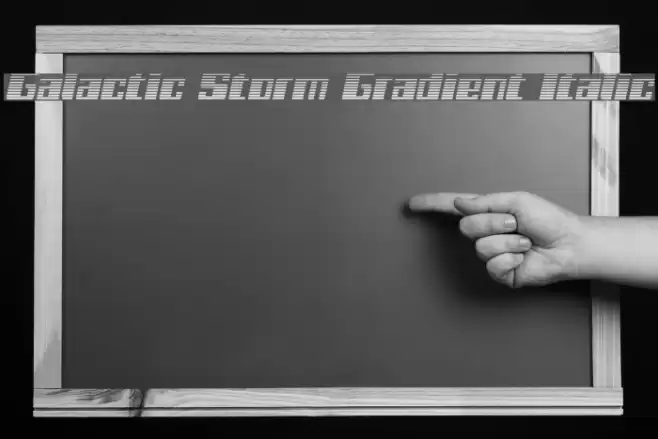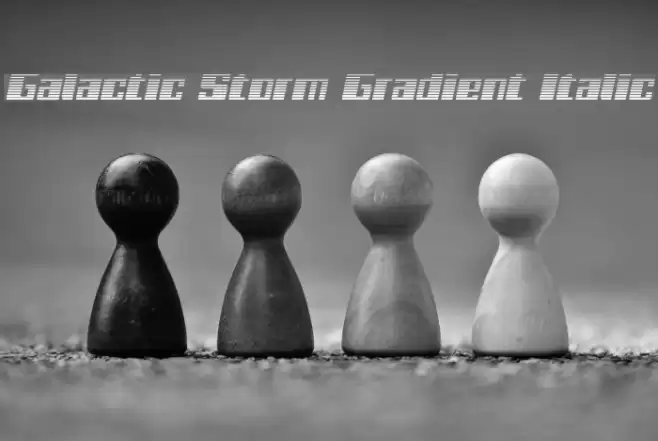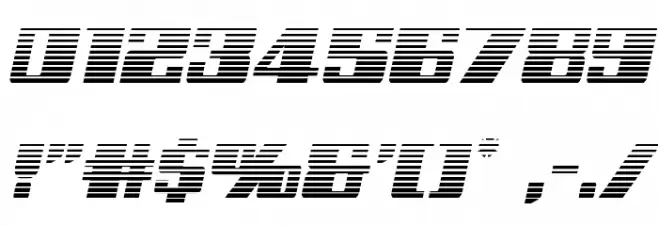
Galactic Storm Gradient Italic Font
Galactic Storm Gradient Italic Description
This font features a futuristic and dynamic design with a distinct italic slant, giving it a sense of motion and speed. The characters are composed of horizontal lines that create a gradient effect, enhancing its modern and technological appearance. The uppercase and lowercase letters maintain a consistent style, with sharp angles and clean edges. The numerals and special characters are designed to match the overall aesthetic, making it suitable for projects that require a bold and eye-catching typeface.
A futuristic, italic font with a gradient line effect, exuding speed and modernity from Uncategorized fonts.
- Proposed Projects: Ideal for sci-fi themed designs, video game titles, tech branding, and futuristic posters.
- Contrast: High